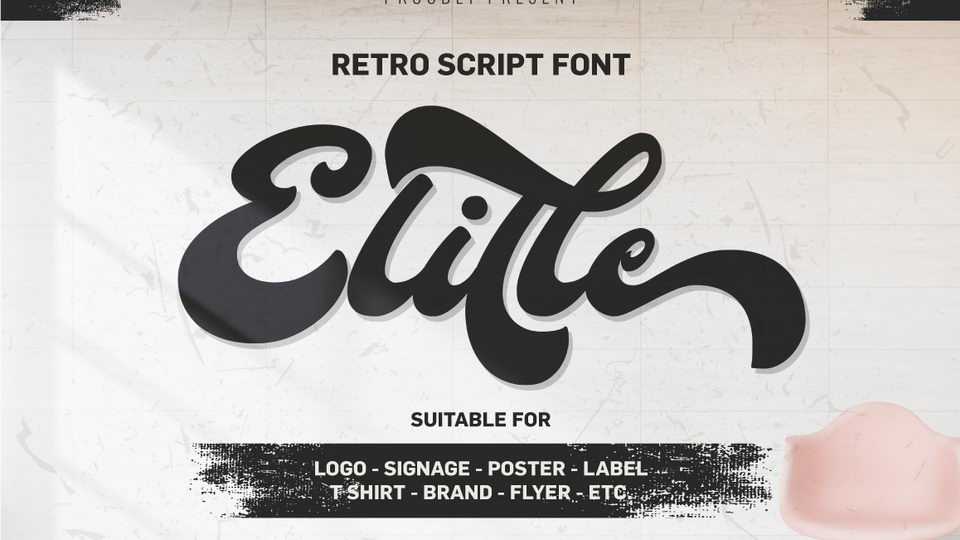
Download Elille font, a hand lettered typeface with consideration of retro style has timeless looking design and fun feeling. Elille was very inspired from the famous retro typography designs in late 60’s untill 70’s.